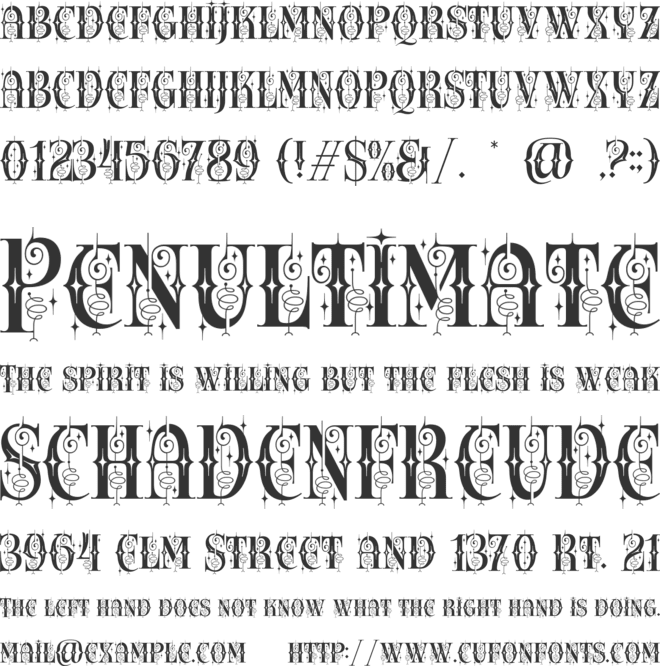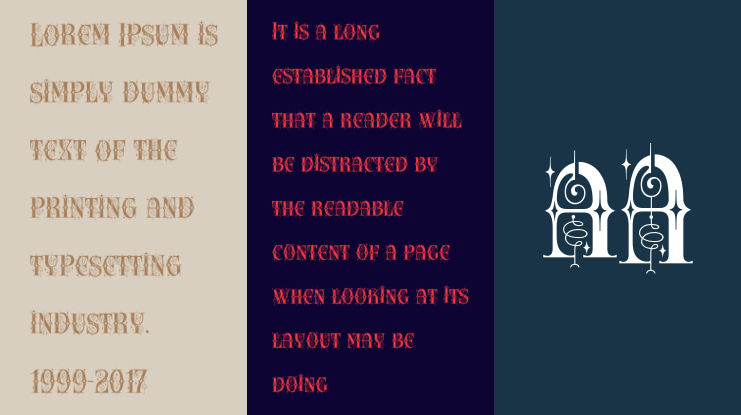
Arca Morphe Font
Arca Morphe Typeface
Unleash the Magic of Ancient Typography
Step into a realm of dark fantasy and celestial elegance with Arca Morphe, a breathtakingly intricate display typeface designed to captivate and mystify. Forged with a unique blend of gothic grandeur and esoteric mysticism, this font is not just a tool for writing; it is an instrument of spellbinding design.
Arca Morphe is defined by its sweeping, ornate swashes, celestial starburst accents, and complex, labyrinthine linework that evokes the feeling of ancient grimoires and forgotten magical sigils. Whether you are summoning the atmosphere of a dark fantasy epic, crafting the branding for an arcane society, or designing striking merchandise, Arca Morphe delivers an aesthetic of "Savage Elegance" that commands attention.